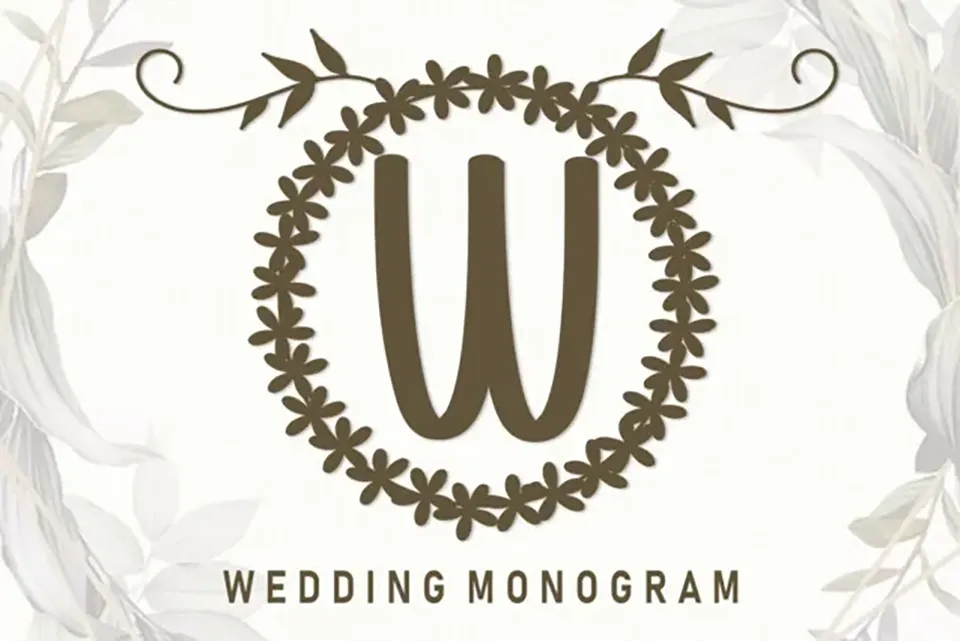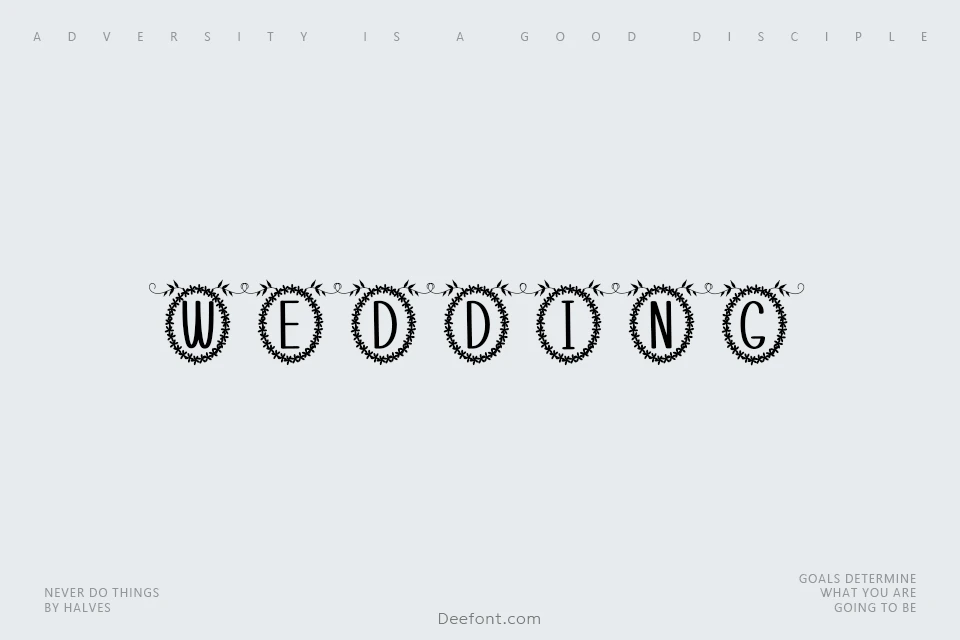
Wedding Monogram Display Font
Wedding Monogram Display Font is designed specifically for creating elegant and personalized monograms, often used for wedding invitations, stationery, and decor. Typically, such a font features stylized letterforms—whether script, serif, or sans-serif—intended to combine initials in a visually appealing way. As a display font, it prioritizes aesthetic impact, potentially including decorative elements or variations suited for large sizes. Inspired by classic calligraphy or contemporary trends, it aims to add a sophisticated and personal touch to wedding materials, reflecting the couple’s style.